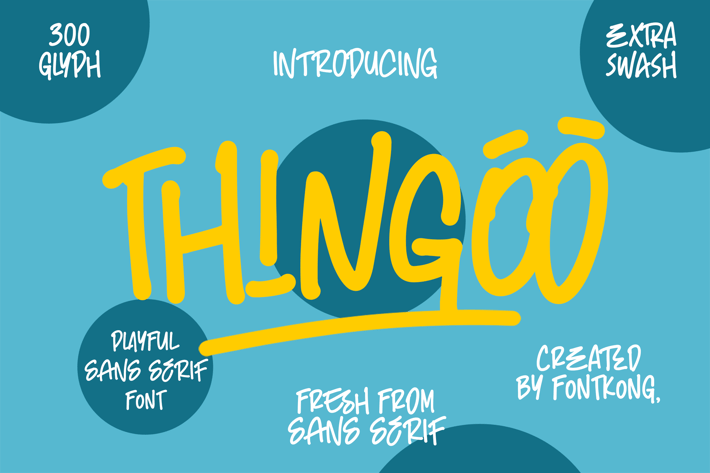
Thingoo – A Playful Sans Serif Font
Introducing Thingoo, a cheerful and playful sans serif font crafted to infuse your designs with a sense of fun and lightheartedness. With its rounded edges, clean lines, and quirky character forms, Thingoo strikes the perfect balance between simplicity and personality.
Perfect for children's content, creative branding, product packaging, posters, and social media visuals, this font was designed to capture attention in the most delightful way. Its readability and charm make it suitable for both headlines and short texts where a friendly, modern touch is needed.
Thingoo comes with a full set of uppercase and lowercase letters, numbers, punctuation, and multilingual support—making it flexible and global-ready.